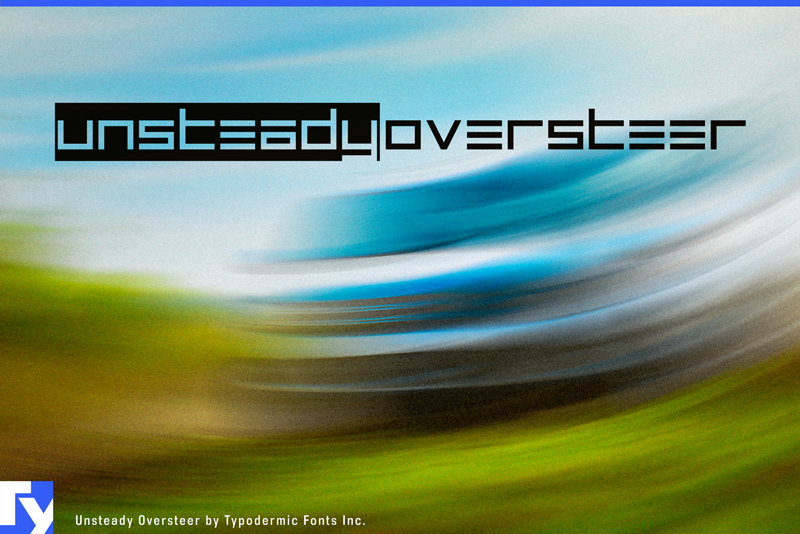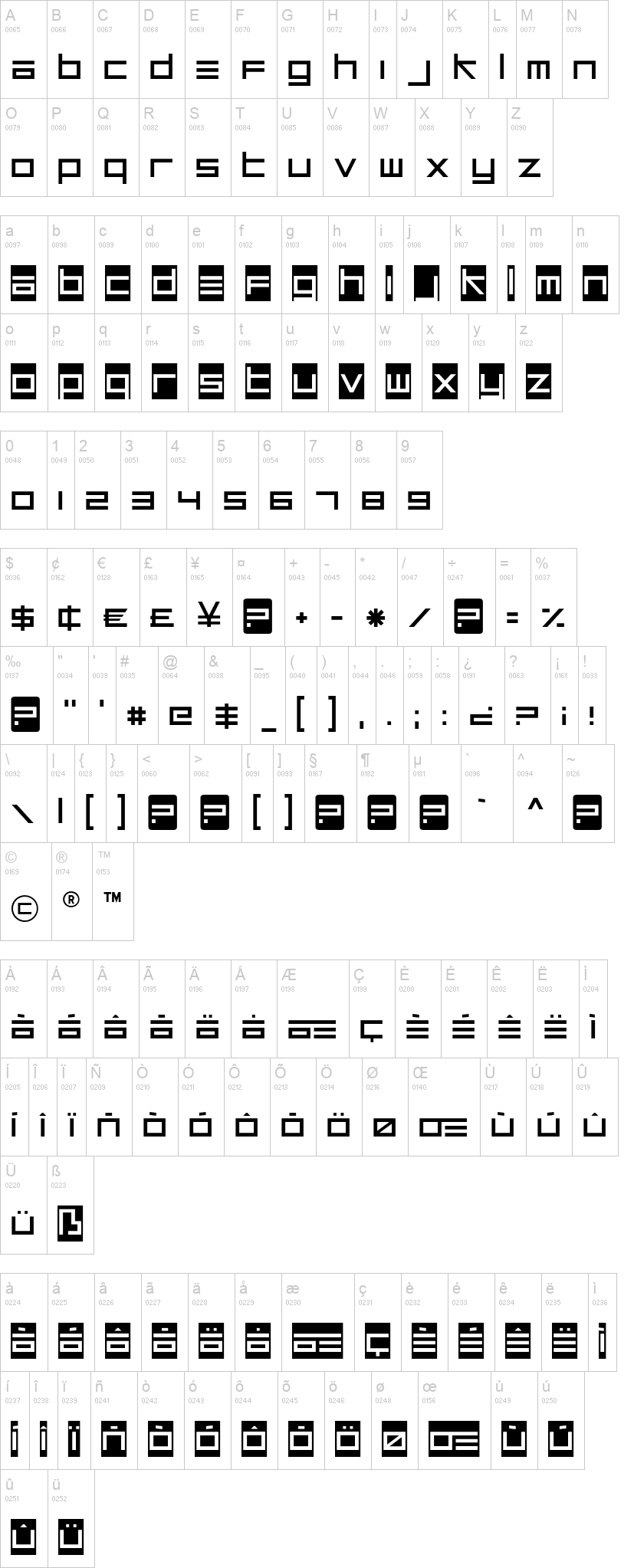
Note of the authorUnsteady Oversteer is an inverse lowercase geometric techno typeface. Its austere digital letterforms and crisp geometry will give your message a distinctive elegance and technological optimism. Most Latin-based European writing systems are supported, including the following languages. Afaan Oromo, Afar, Afrikaans, Albanian, Alsatian, Aromanian, Aymara, Bashkir (Latin), Basque, Belarusian (Latin), Bemba, Bikol, Bosnian, Breton, Cape Verdean, Creole, Catalan, Cebuano, Chamorro, Chavacano, Chichewa, Crimean Tatar (Latin), Croatian, Czech, Danish, Dawan, Dholuo, Dutch, English, Estonian, Faroese, Fijian, Filipino, Finnish, French, Frisian, Friulian, Gagauz (Latin), Galician, Ganda, Genoese, German, Greenlandic, Guadeloupean Creole, Haitian Creole, Hawaiian, Hiligaynon, Hungarian, Icelandic, Ilocano, Indonesian, Irish, Italian, Jamaican, Kaqchikel, Karakalpak (Latin), Kashubian, Kikongo, Kinyarwanda, Kirundi, Kurdish (Latin), Latvian, Lithuanian, Lombard, Low Saxon, Luxembourgish, Maasai, Makhuwa, Malay, Maltese, Māori, Moldovan, Montenegrin, Ndebele, Neapolitan, Norwegian, Novial, Occitan, Ossetian (Latin), Papiamento, Piedmontese, Polish, Portuguese, Quechua, Rarotongan, Romanian, Romansh, Sami, Sango, Saramaccan, Sardinian, Scottish Gaelic, Serbian (Latin), Shona, Sicilian, Silesian, Slovak, Slovenian, Somali, Sorbian, Sotho, Spanish, Swahili, Swazi, Swedish, Tagalog, Tahitian, Tetum, Tongan, Tshiluba, Tsonga, Tswana, Tumbuka, Turkish, Turkmen (Latin), Tuvaluan, Uzbek (Latin), Venetian, Vepsian, Võro, Walloon, Waray-Waray, Wayuu, Welsh, Wolof, Xhosa, Yapese, Zapotec Zulu and Zuni.